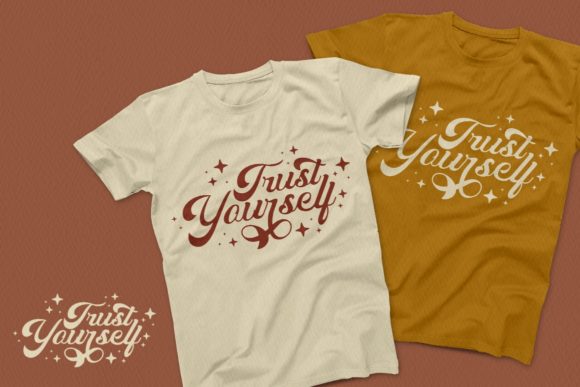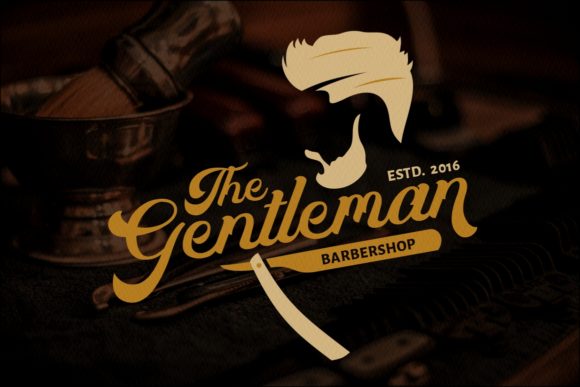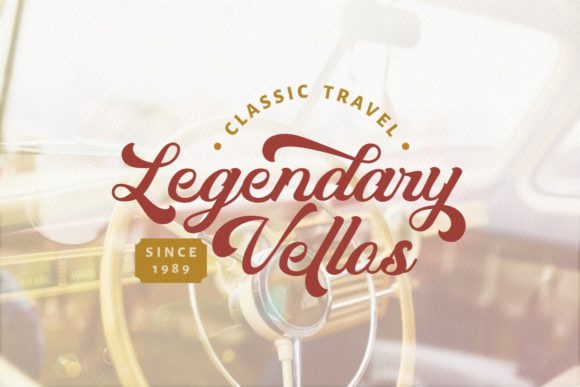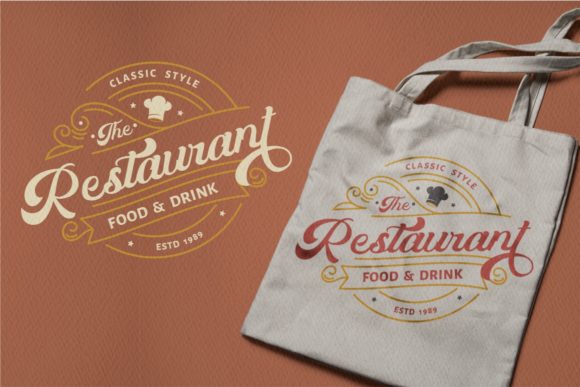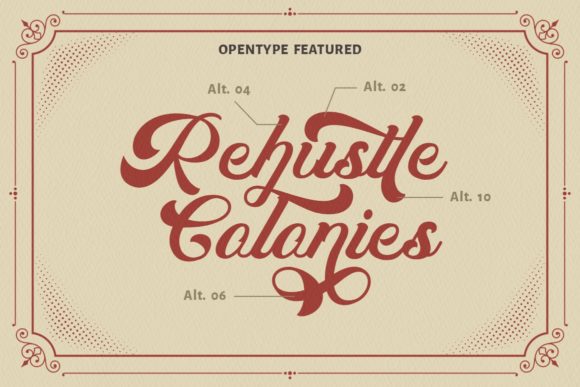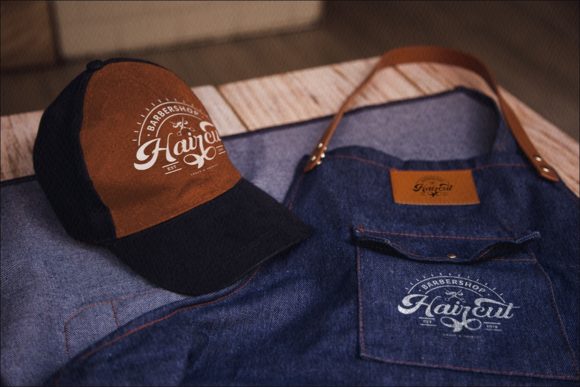
Introduction to Mahacara Font
Have you ever been working on a design project and suddenly felt the urge to transport your audience to a bygone era? For me, it’s the sound of vinyl records spinning, the smell of old books, and the feel of vintage paper beneath my fingers. It’s a sensation that sparks creativity and sets my imagination ablaze. And that’s exactly what the Mahacara Font is all about – evoking a sense of nostalgia and wonder.
As a valuable design resource, the Mahacara Font offers an incredible vintage aesthetic that’s perfect for adding a touch of retro charm to any project. With its high-quality, transparent background, this beautiful script font is a game-changer for designers looking to create unique and eye-catching designs.
Key Features of Mahacara Font
- High-quality design resource with a unique and creative style, perfect for any project.
- Part of a comprehensive font family, offering a wide range of styles and weights to suit different design needs.
- Perfect for use in creative projects, such as graphic design, branding, and digital art, where a unique and eye-catching font is required.
Honest Review: Mahacara Font
As a designer, I’m always on the lookout for high-quality fonts to elevate my creative projects. The Mahacara Font is a great find, offering a unique and elegant design that’s perfect for various applications.
Here are some things that work well with the Mahacara Font:
- ✨ Unique and elegant design
- ✨ High-quality typography
- ✨ Transparent background for easy use
However, I did encounter some limitations while working with this font:
- ⚠️ Limited character set
- ⚠️ Not ideal for large-scale text
Overall, I’m impressed with the Mahacara Font and would definitely recommend it for designers working on creative projects. With its unique design and transparent background, it’s a valuable resource to have in your design arsenal.
Tips for Getting the Most Out of Mahacara Font
For optimal results, use Mahacara Font in conjunction with other high-quality design elements. Experiment with different font sizes and colors to achieve the desired look.
Common Use Cases for Mahacara Font
The Mahacara Font is ideal for a variety of creative projects, including:
- Branding
Alternatives to Mahacara Font
Comparison to Mahacara Font: Montserrat is more geometric and modern compared to Mahacara Font, which has a more rounded and elegant feel. Montserrat is also more versatile and can be used in a variety of contexts, from print to digital design.
Q: What is the recommended size for using the Mahacara Font in a design project?
The Mahacara Font is a high-quality design resource, and it can be used at various font sizes depending on your design requirements. However, we recommend using the font at a minimum size of 12 points for optimal legibility and clarity.